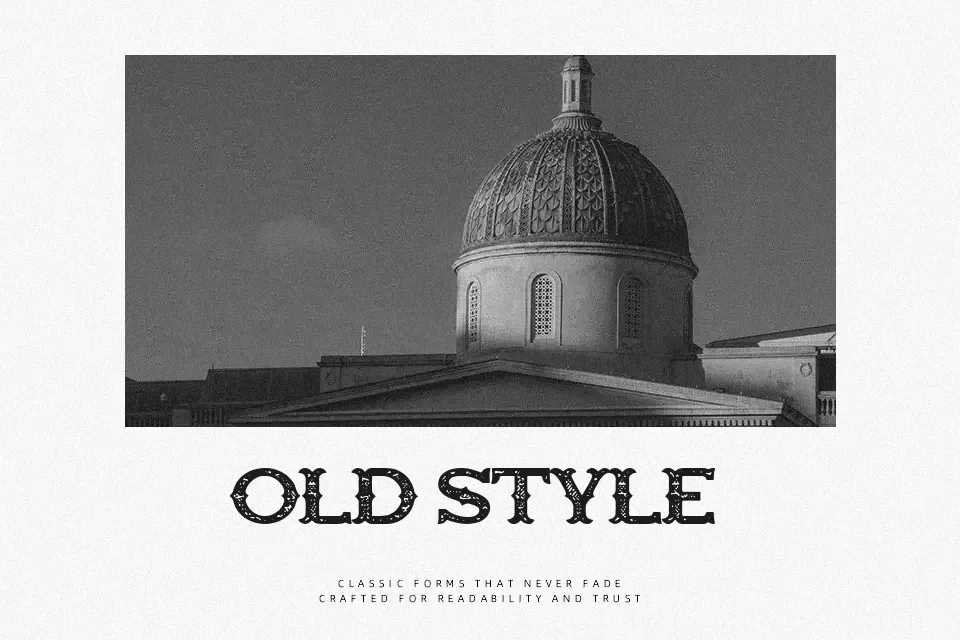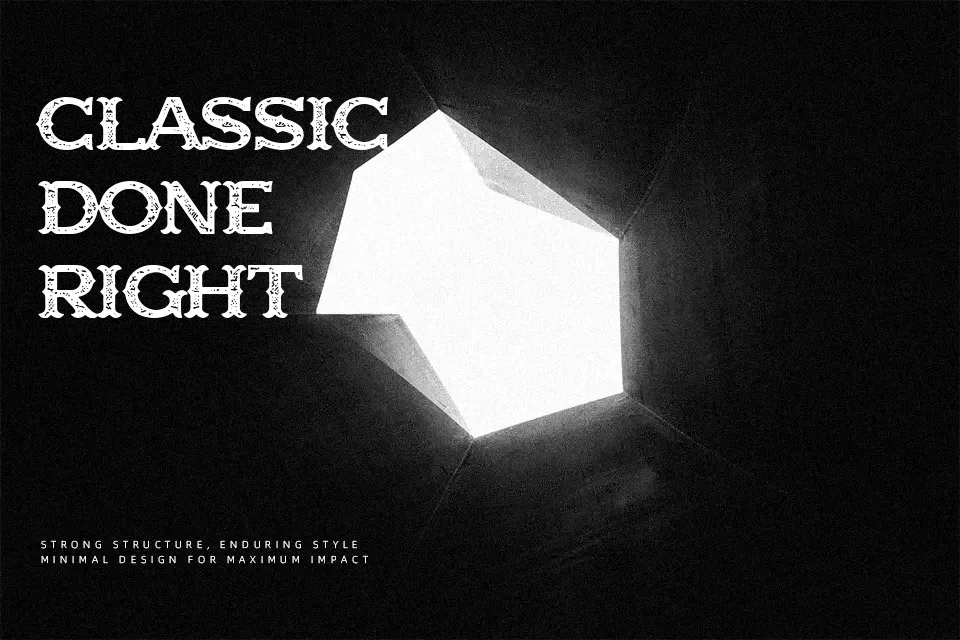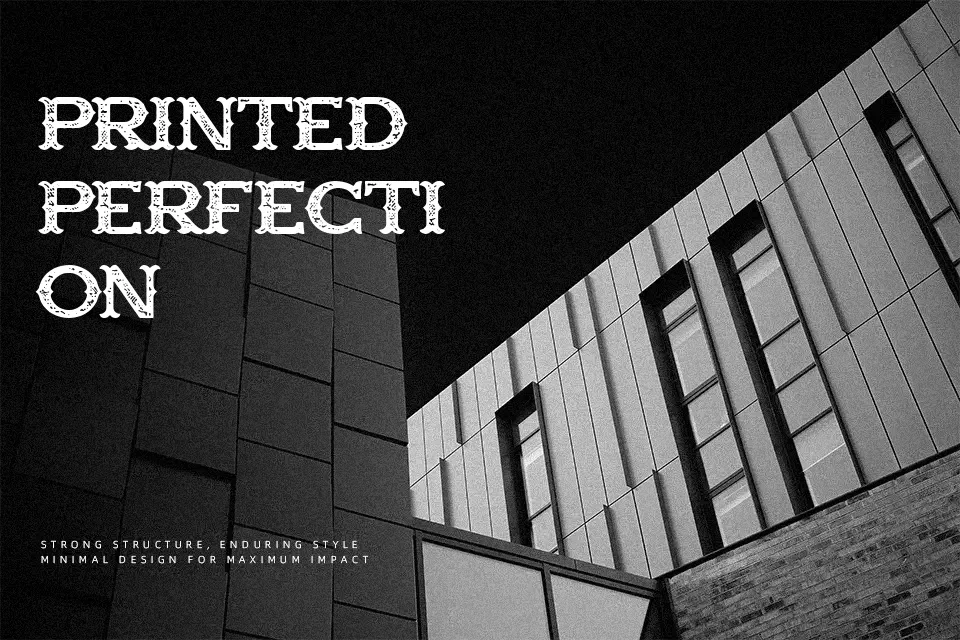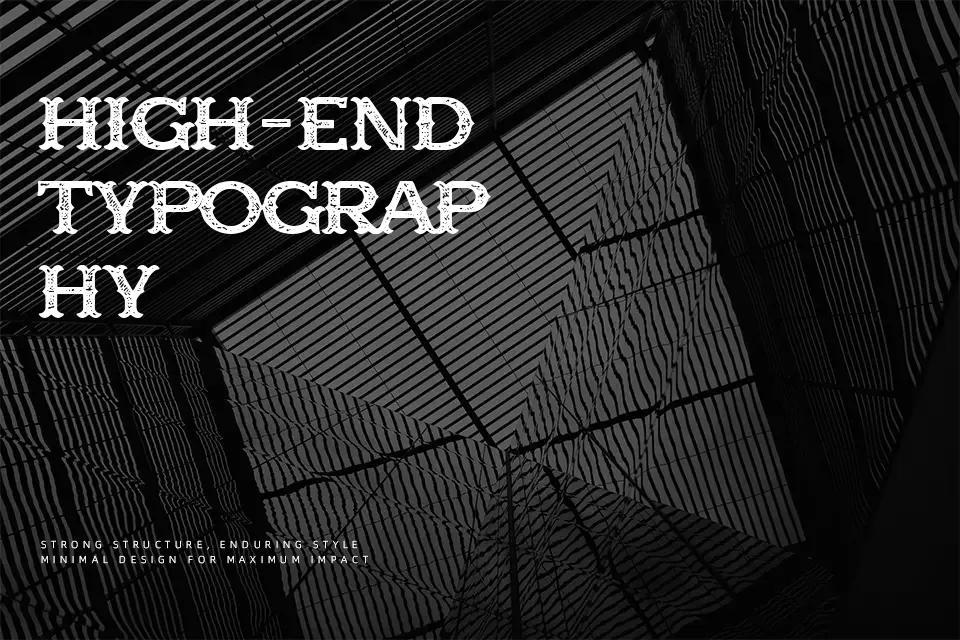
Time to Dead Font
Time to Dead Font achieves its most striking results at expansive display scales where its weathered letterforms command viewer attention. Built with heavy strokes, prominent slab serifs, and wide structural proportions, the glyphs exhibit an eroded texture that evokes vintage printed documents. Character spacing remains moderately open, preventing the dense contours from colliding in prominent headline layouts. Readability remains dependable across banners, cinematic title cards, and apparel branding, yet the intricate distressing significantly degrades clarity at smaller dimensions. Consequently, this typeface is unsuited for multi-line body paragraphs or compact editorial captions. The eroded surface texture introduces distinctive personality without compromising structural balance.
Best For: rodeo event posters, rustic product packaging, western film title cards, themed apparel graphics
Not Ideal For: long paragraph text, small interface labels, mobile app navigation, dense editorial layouts
Perfect for film, headline, and logo, with a grunge and decorative style.